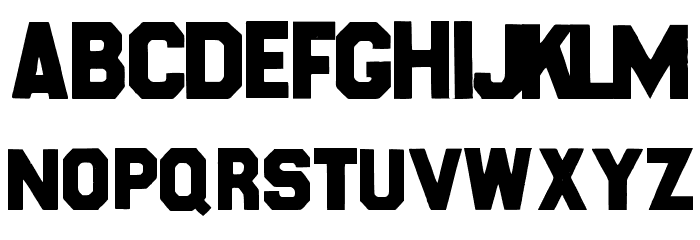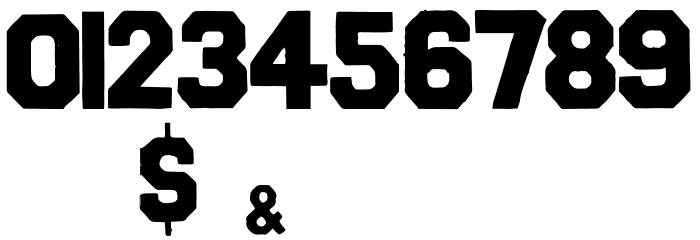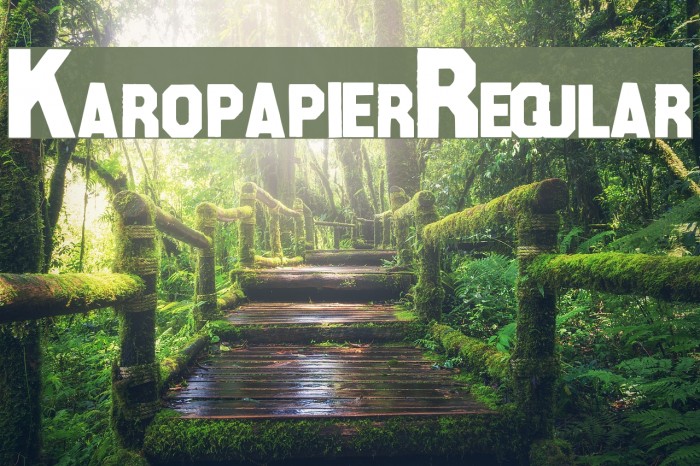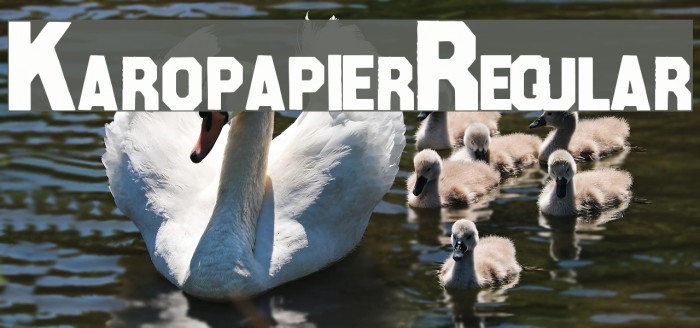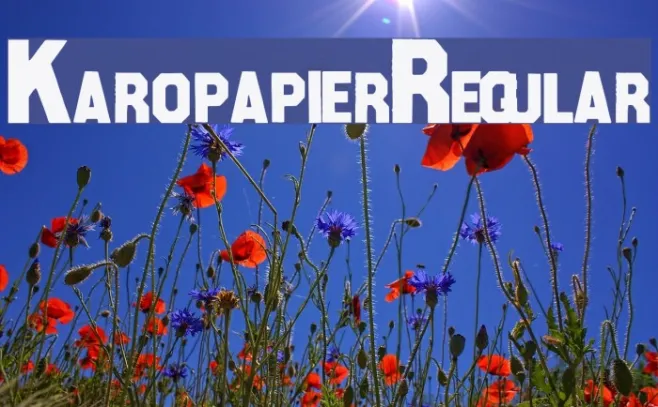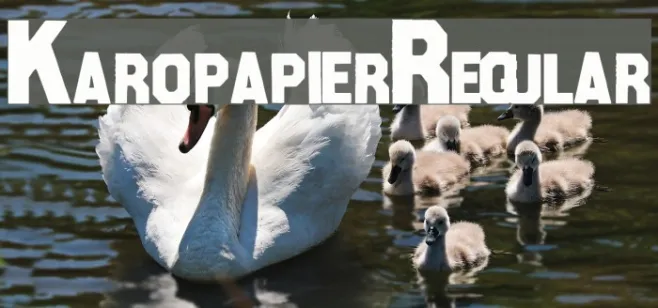
KaropapierRegular Font
This font exhibits a bold, geometric style with strong, angular lines and a blocky appearance. The uppercase letters are robust and commanding, making a strong visual impact. The design features uniform stroke widths, contributing to a cohesive and structured look. The numerals and special characters maintain the same boldness and angularity, ensuring consistency across all glyphs. This font's distinctive style is both modern and industrial, suitable for projects that require a strong and assertive typeface.
A bold, geometric font with strong, angular lines and a blocky appearance.
- Proposed Projects: Ideal for posters, logos, branding, and headlines that require a bold and impactful typeface.
- Overall Style: Modern, Industrial